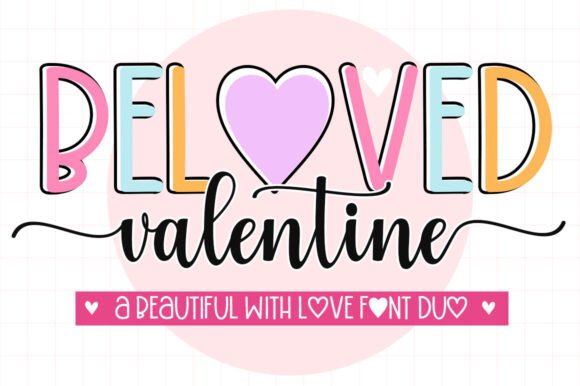
The Quest for the Perfect Valentine’s Day Font
Ah, Valentine’s Day – a time for love, romance, and beautiful design. I still remember the year I spent hours scouring the internet for the perfect font for a client’s wedding invitation. The design had to be trendy, feminine, and convey a sense of whimsy. I tried font after font, but none seemed quite right. That was until I stumbled upon a gem that stole my heart – the Beloved Valentine Font Duo.
First Impressions: A Modern Script Font
The Beloved Valentine Font Duo is a stunning modern script font with an irregular baseline, giving it a delightfully handmade feel. Its trendy and feminine style makes it perfect for a variety of design projects, from wedding invitations and thank-you cards to quotes, greeting cards, logos, and business cards.
- ✨ Trendy and feminine design that’s perfect for Valentine’s Day and beyond
- ✅ Irregular baseline adds a touch of whimsy and handmade charm
- ✅ Includes initial letters and terminals, alternatives, and support for many languages
- ✅ Perfect for use in ink or watercolors, making it a great choice for crafters and designers who love to experiment with different mediums
While the Beloved Valentine Font Duo is an amazing font, there are a few things to keep in mind. For example, ⚠️ some of the glyphs and stylistic alternates can be a bit finicky to access, especially if you’re new to using OpenType features. Additionally, 🤔 the font’s irregular baseline can make it tricky to use in certain design contexts, such as when you’re working with tables or grids.
The Designer Inspiration
The Beloved Valentine Font Duo was designed with love and care by a talented font designer who wanted to create a font that would capture the essence of Valentine’s Day. The designer’s inspiration came from the beauty of handwritten scripts and the need for a modern, trendy font that would stand out in a crowded design landscape.
Q: What is the Beloved Valentine Font Duo?
A: The Beloved Valentine Font Duo is a modern script font with an irregular baseline, perfect for designs that need a trendy, feminine touch.
Q: Is the font suitable for use in ink or watercolors?
A: Yes, the font is perfect for use in ink or watercolors, making it a great choice for crafters and designers who love to experiment with different mediums.